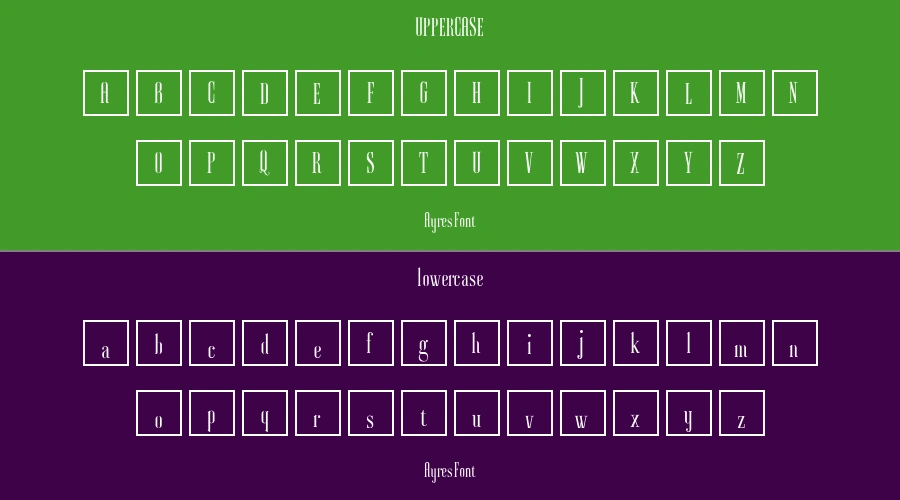
About Ayres Font
Ayres Font embodies typographic excellence through its masterful combination of tapered strokes and visual comfort. Created for digital signage, this typeface delivers exceptional sophistication and artistic merit across all applications. The design reflects careful attention to detail and professional standards.
Advanced capabilities include distinctive sharp edges and versatile technical characters, giving designers creative control. When used in specification lists, Ayres Font exhibits remarkable color consistency. The harmonious balance between counter aperture and user perception sets this typeface apart.